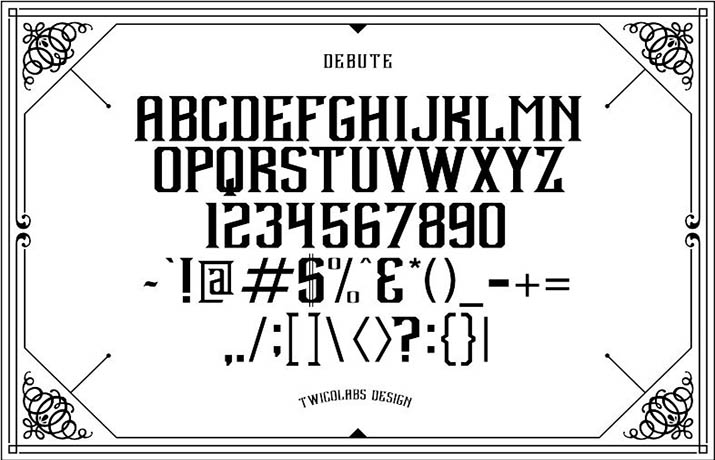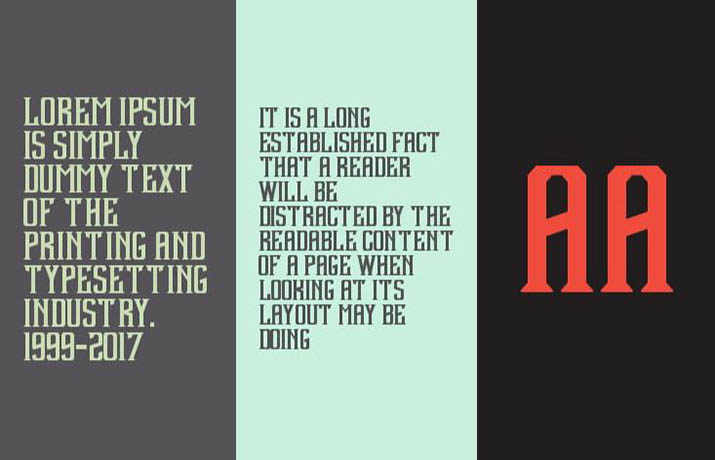
Debute Font is a fancy retro typeface that is designed to create a bold statement. It was designed and published by Twicolabs Fontdation.
This font family comes in a single weight with both OTF and TTF formats. This style contains 102 glyphs and 817 binary stored kerning pairs. Moreover, it also supports 34 languages.
All letters are created with bold strokes and at the corners, sharp stylish edges are added by the designer. So, these edges make it a horror font.
Its unique design is perfect for any project that requires a dark and edgy feel. So, try it out for creating logos, titles, headers, and posters that will instantly capture the attention of your audience.
Features of This Font
- Uppercase letters, numerals, symbols, & punctuation
- 102 glyphs and 817 binary stored kerning pairs
- 34 multilingual languages support
- Condensed spacing
Style: | Fancy, Retro, Display |
- It can be used for many different things, such as designing gothic-themed t-shirts, branding, logo designs, signage, social media banners, posters, brochures, and signs. It can also be used for product design, special event cards, packaging, and branding. – banners, headers, ads, sports logos, branding, logo design, or even a gothic-themed poster.